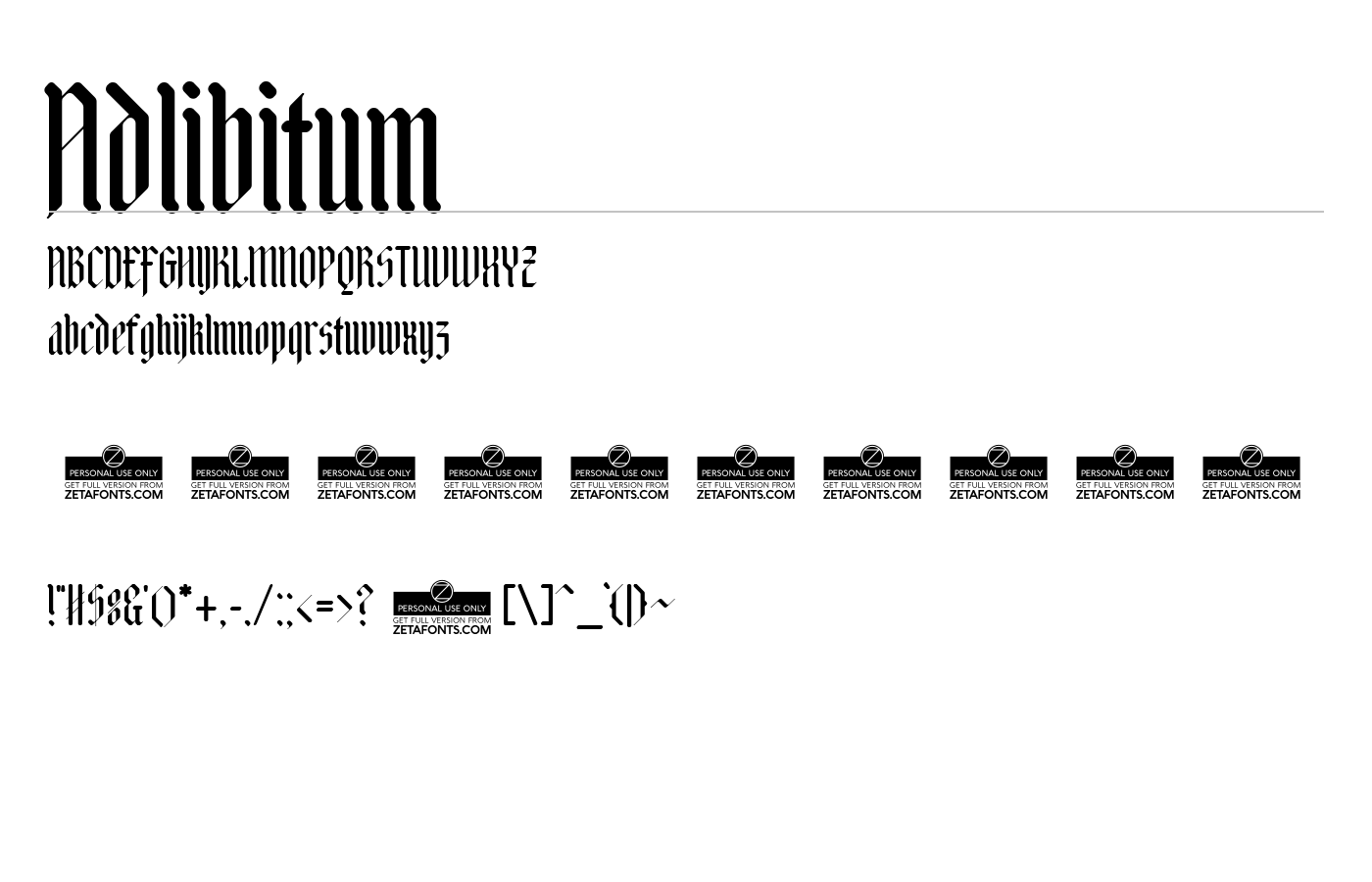
Adlibitum is a condensed serif font with a distinctive blackletter influence, featuring tall, narrow characters and sharp, angular strokes that create a striking, gothic appearance. Its high contrast and precise, compact letterforms give it a strong, dramatic personality, making it ideal for headlines, logos, and branding that seek a vintage, mysterious, or elegant vibe. This font works best where impact and style are prioritized over readability in large blocks of text.
Adlibitum Font
About Adlibitum Font
| Font family | Adlibitum Font |
| Release date | 2011-08-25 |
| Designer | Francesco Canovaro, Cosimo Lorenzo Pancini |